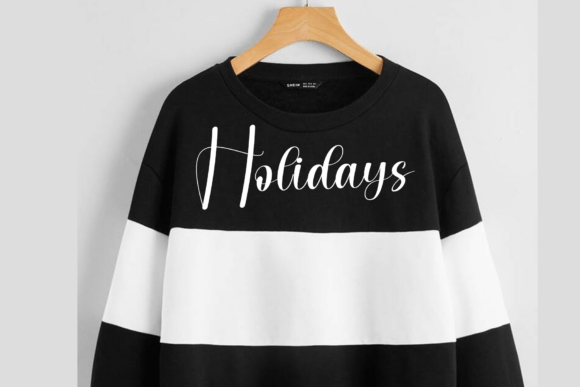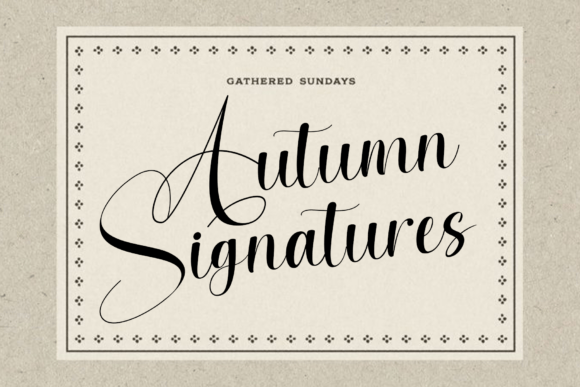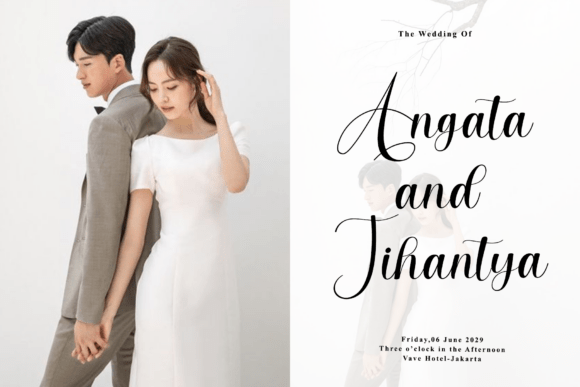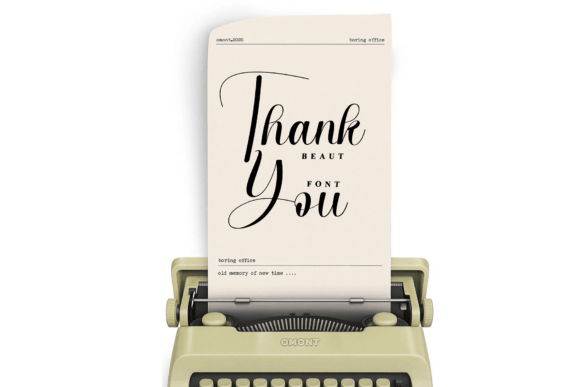
Introducing Aututhory Font: The Timeless Handwritten Font for Stunning Designs
Are you a designer or crafter looking for a font that can elevate your creative projects to the next level? Look no further than Aututhory Font, a lovely and timeless handwritten font that is perfect for creating eye-catching logos, branding, and quotes. With its unique and beautiful touch, Aututhory Font is sure to make your design come alive!
The Characteristics of Aututhory Font
Aututhory Font is a carefully crafted handwritten font that boasts a range of characteristics that make it perfect for designers and crafters. Here are just a few of the features that set Aututhory Font apart:
- Unique and Beautiful Touch: Every letter in Aututhory Font has a unique and beautiful touch that adds a personal touch to your designs. The font’s handwritten style gives it a warm and inviting feel that is sure to capture the attention of your audience.
- Timeless Design: Unlike trendy fonts that quickly go out of style, Aututhory Font has a timeless design that will remain relevant for years to come. Its classic look and feel make it a versatile font that can be used for a wide range of projects.
- Highly Versatile: Aututhory Font is highly versatile and can be used for a variety of projects, from logos and branding to quotes and social media graphics. Its flexibility makes it a great addition to any designer’s font library.
Why Choose Aututhory Font?
So why should you choose Aututhory Font for your next design project? Here are just a few reasons why Aututhory Font is the perfect choice:
- Easily Readable: Aututhory Font is highly legible, making it easy for your audience to read and understand your message. Its clear and concise style ensures that your text is communicated effectively.
- Perfect for Branding: Aututhory Font is perfect for creating stunning brand identities that will help you stand out from the competition. Its unique and memorable style makes it easy to create a lasting impression.
- Great for Quotes and Social Media Graphics: Aututhory Font is also great for creating eye-catching quotes and social media graphics. Its stylish and modern look is sure to grab the attention of your audience and leave a lasting impression.
Tips for Using Aututhory Font
Here are a few tips for using Aututhory Font to get the most out of this amazing font:
- Use it for Headings and Titles: Aututhory Font is perfect for headings and titles, where its unique and beautiful touch can really shine. Use it to add a personal touch to your designs and make them more engaging.
- Experiment with Colors and Textures: Aututhory Font looks great in a variety of colors and textures. Experiment with different combinations to find the one that works best for your design.
- Pair it with Other Fonts: Aututhory Font can be paired with other fonts to create a unique and stylish look. Try pairing it with a sans-serif font for a modern and sleek look.